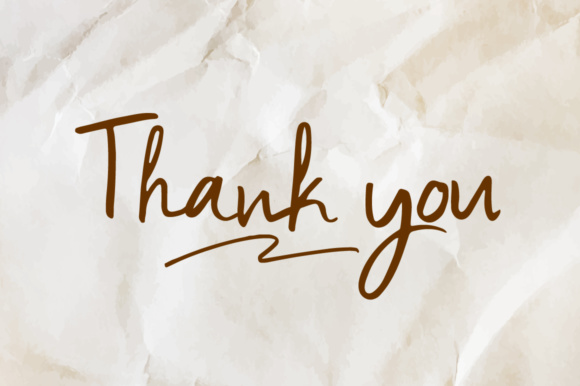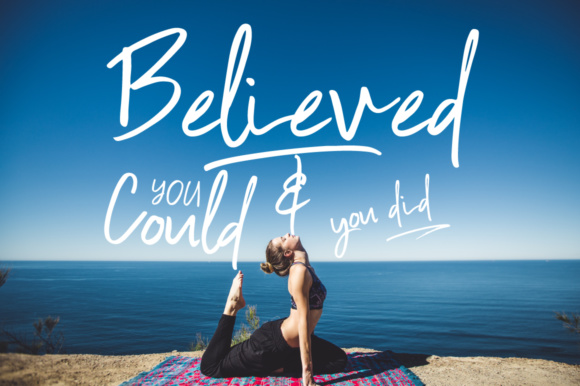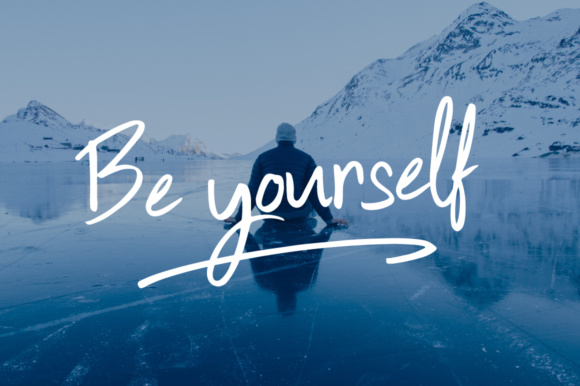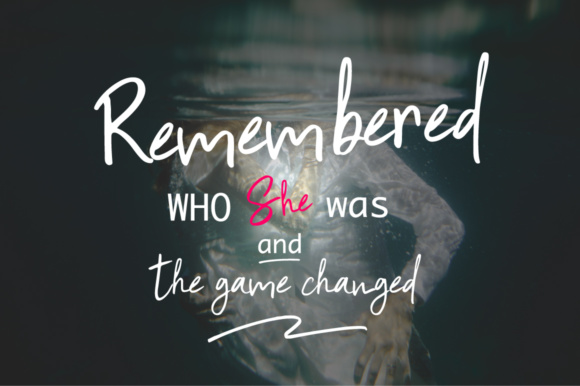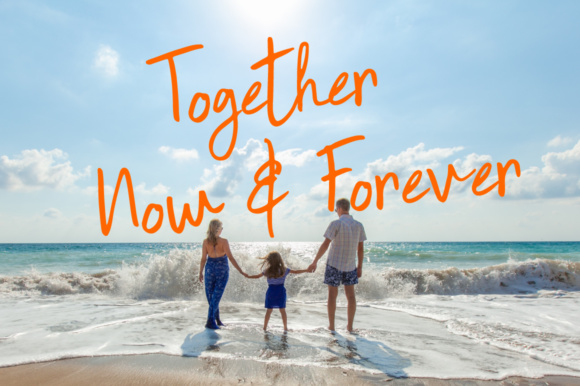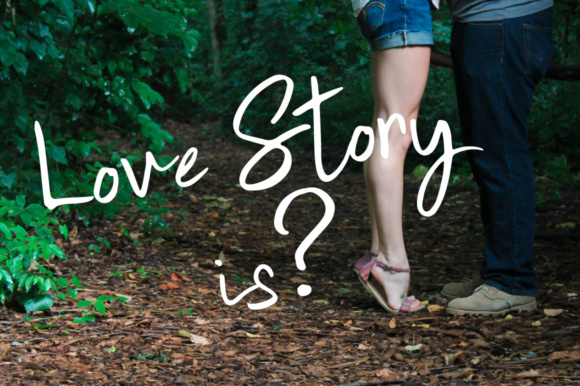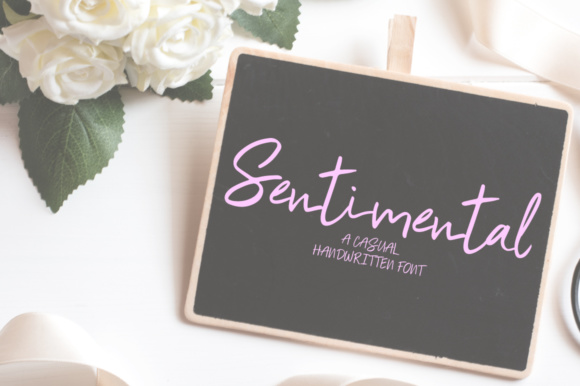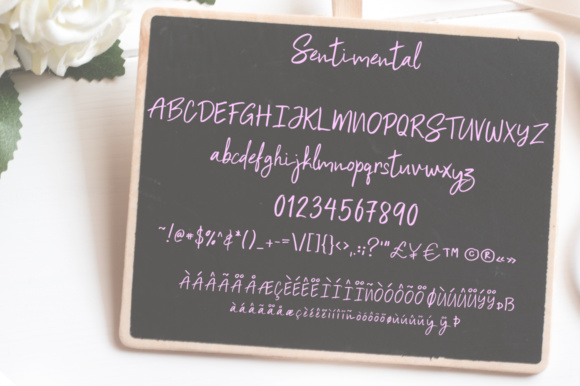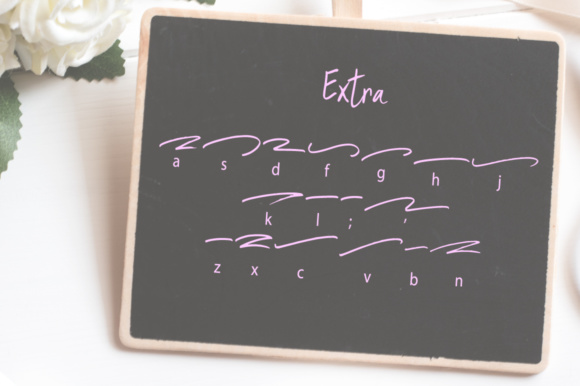
Sentimental Font
About Sentimental Font
The Sentimental is a beautiful handwritten script. It’s perfect for wedding invitations, blogs, logos, and much more!